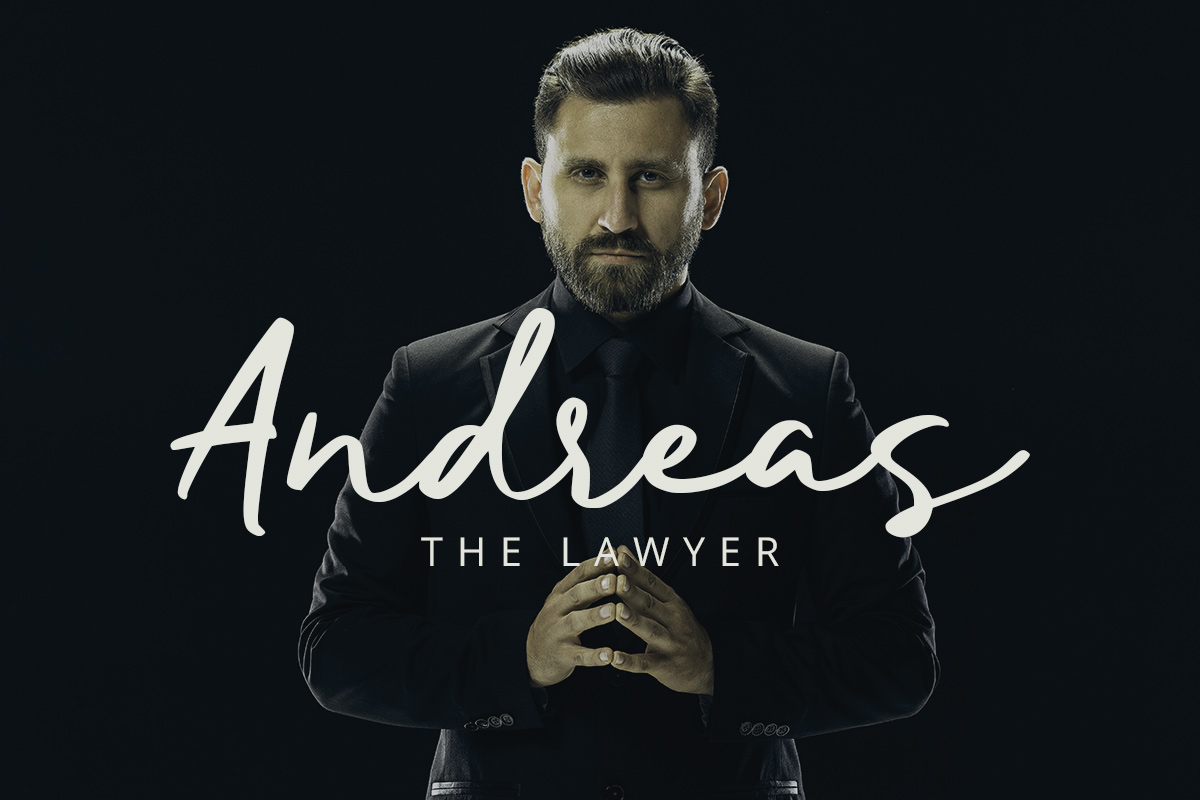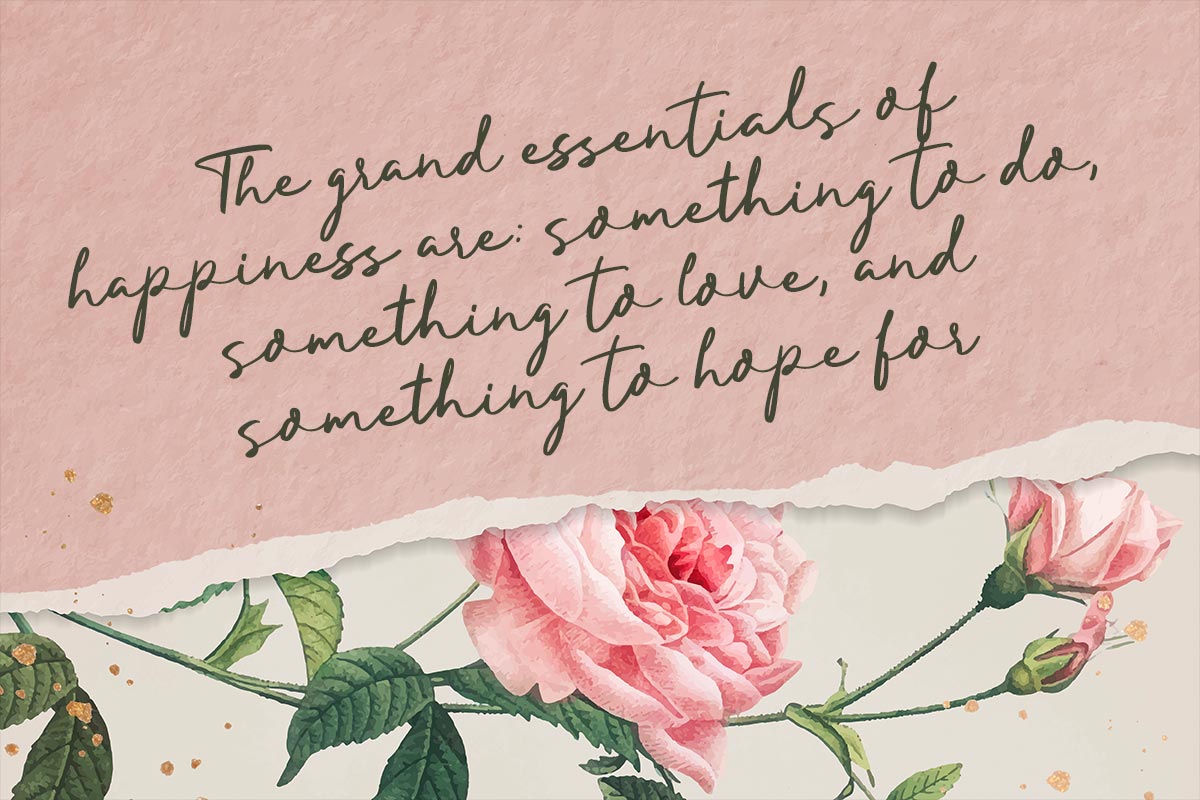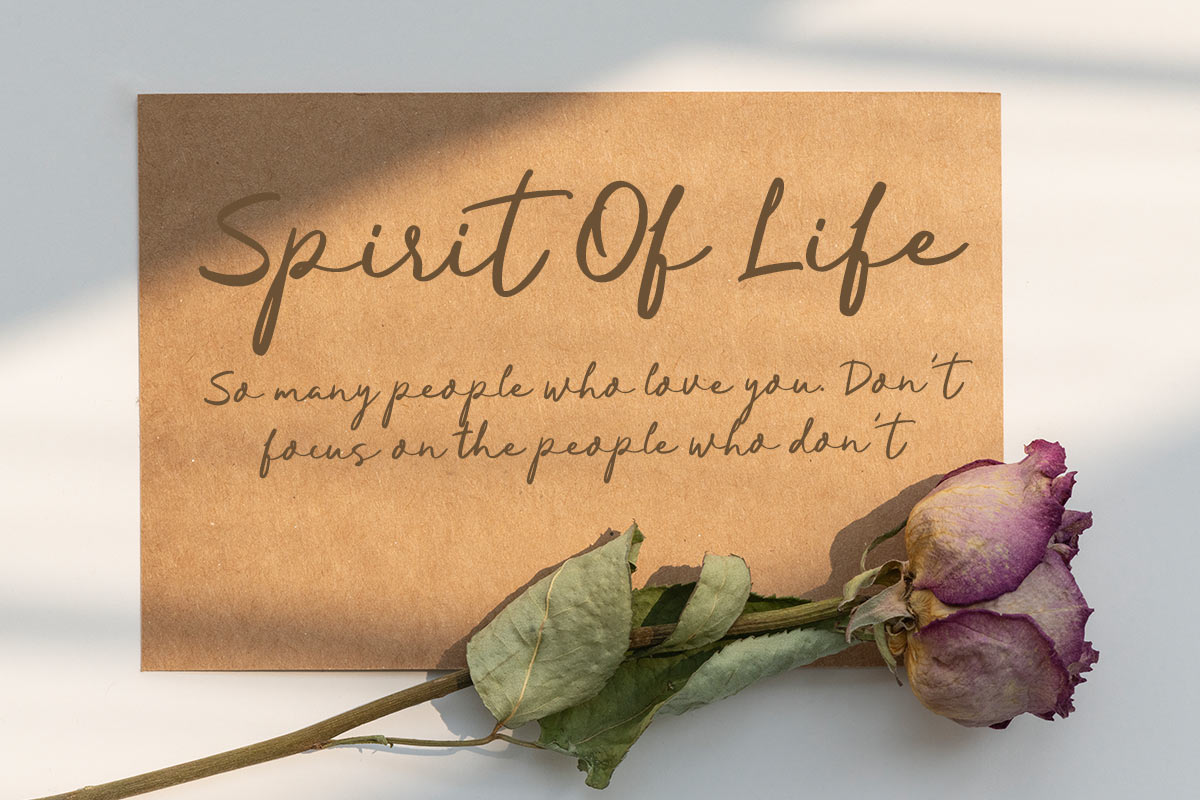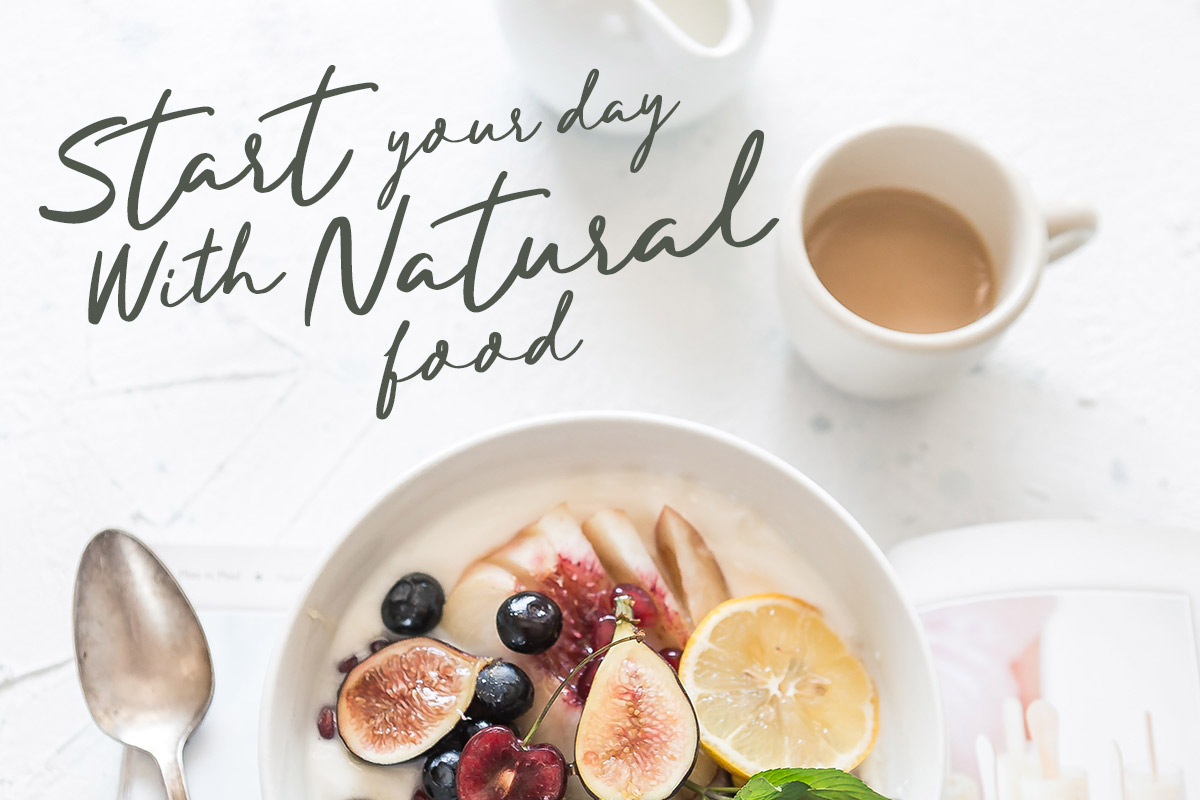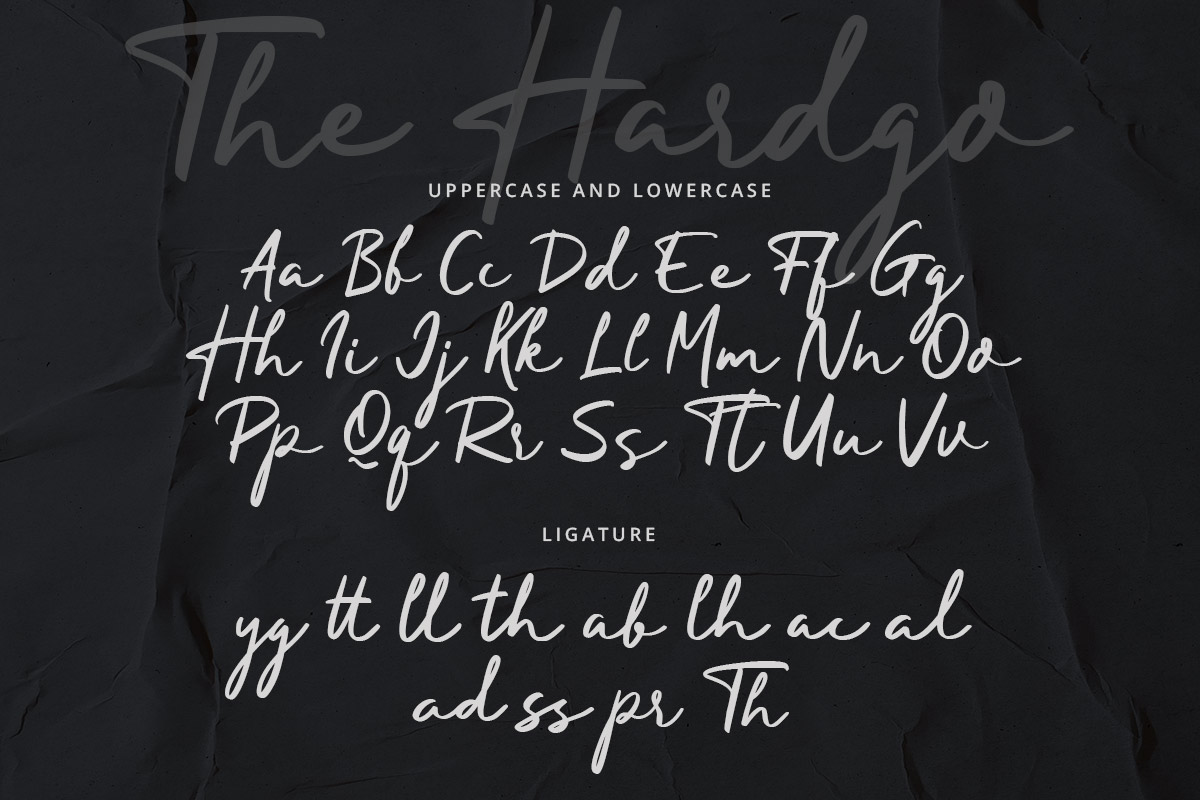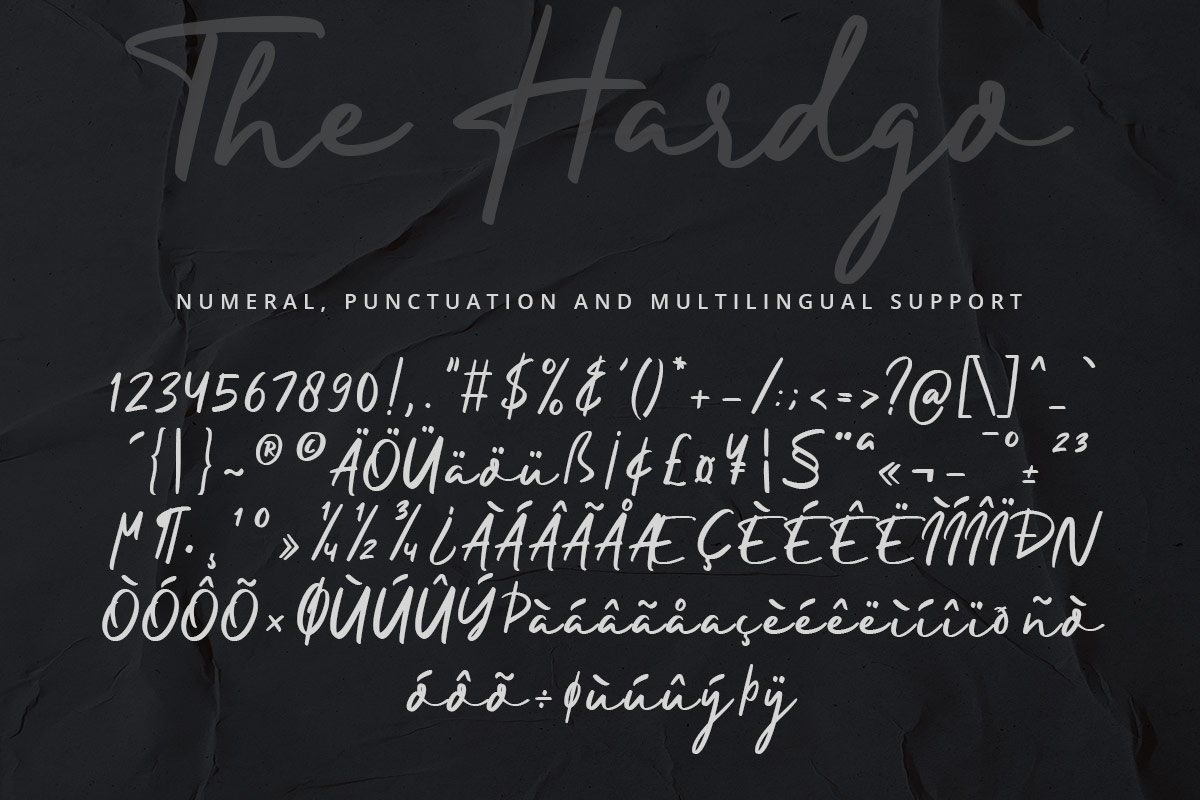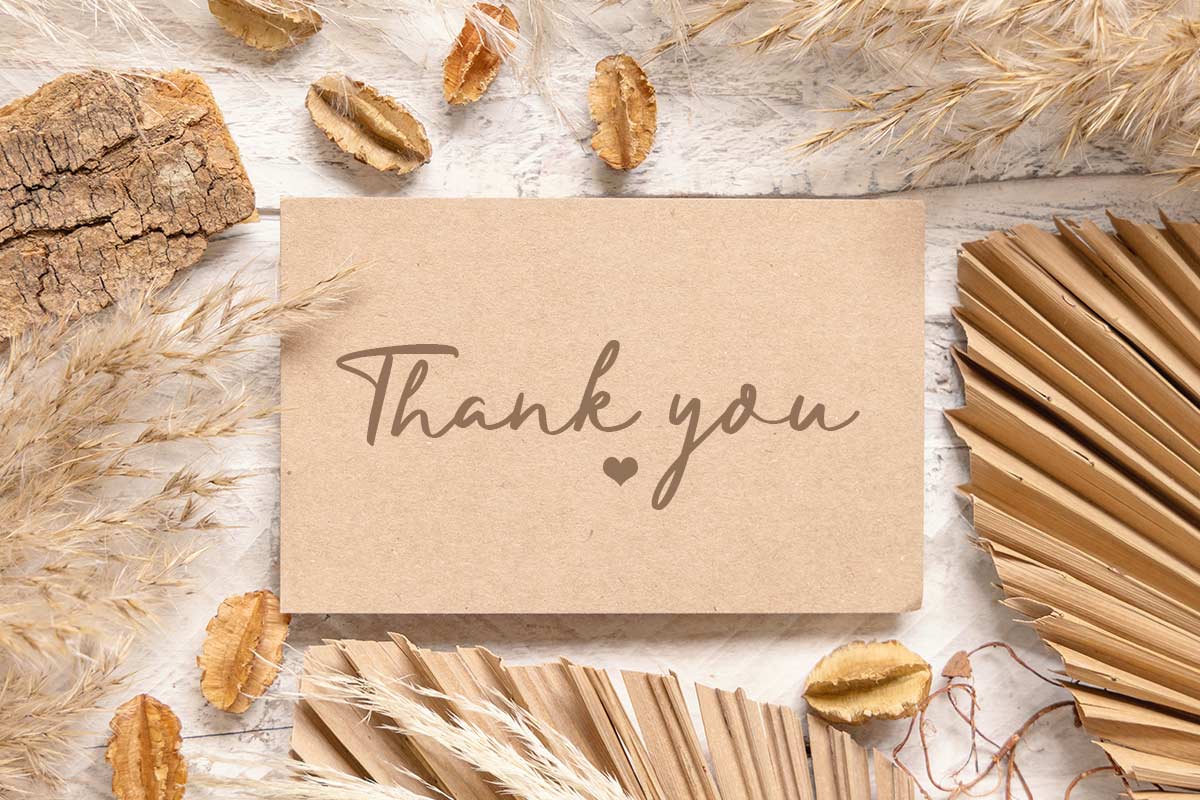
The Hardgo Handwritten Font is a part of our Script & Signature font family. The Hardgo Handwritten Font is a typeface that is very elegant and exudes a simple yet luxurious impression. It looks like handwriting that was created using a small brush pen. It has many beautiful flows and curves in its design. However, compared to other types of font, the Script or Hand-written typeface has more limited use. This type of typeface is more suitable to be used in a formal event such as a wedding, a classical music concert, a graduation event, etc. You may use this typeface to create your printed invitations, posters, or souvenirs. A script typeface such as The Hardgo Handwritten Font is one of our eligible fonts to be used in movies or new songs' promotional materials. Those movie titles with the main female lead actress, or the ones with feminine themes are the best pick for the The Hardgo Handwritten Font. Our The Hardgo Handwritten Font does not require a lot of decoration or additional work to make it look charming both in printed and non-printed material. All you ever need is the skill to understand good fonts combination and different typefaces that work together. With the right colors and themes, you can bring out the best potential of our Sandria font. Avoid using The Hardgo Handwritten Font in a long body of text with tons of condensed information for your reader because our The Hardgo Handwritten Font may be one of the best display script fonts but it may not be the best font to pick if you want a readable and illegible type of fonts for your project. Our collections of script & signature fonts are compatible use as Figma fonts, Canva fonts, Freepik Fonts, and Adobe Fonts. They also work as Windows Fonts and Apple Fonts. For your social media needs, you can use and install fonts in our collection of Script & Signature fonts to use as Instagram Fonts, Facebook Fonts, and Twitter Fonts.